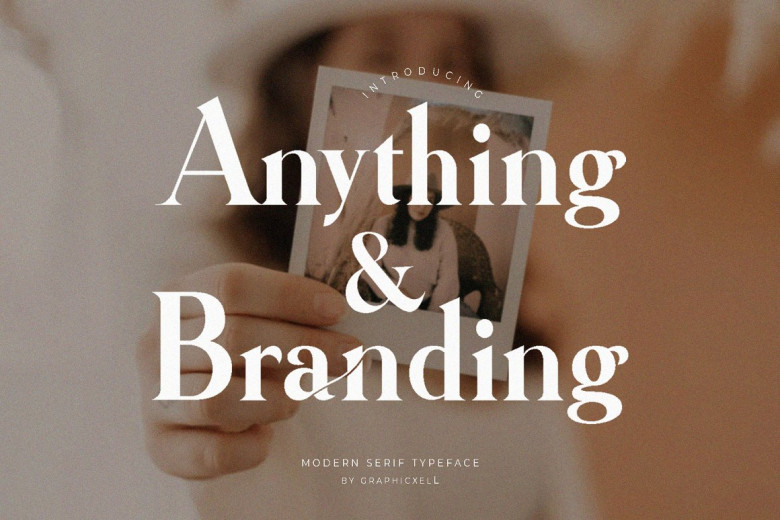
Anything Branding Font
Anything Branding Serif FontThis work is inspired by classic minimalism. It surely comes in handy as a tool for anybody who needs to do templates, lauouts, video, advertising work, brands, logos, invitation card crafting, the proper and delicate manner of subtle manuscript style, Instagram template, fashion and film cover beauty design and so on.
Anything Branding Serif Font